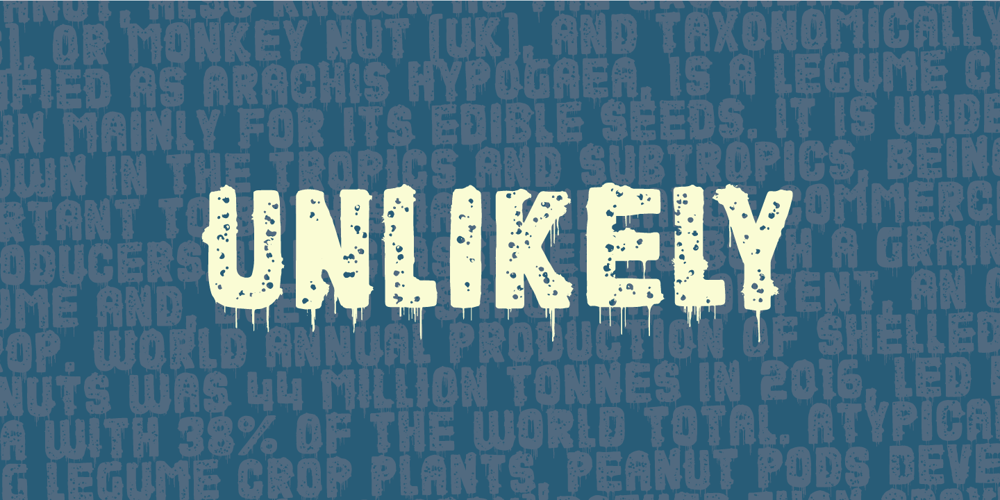
Unlikely
Unlikely font
Unlikely Font Family was designed by Jakob Fischer and published by PizzaDude.dk. Unlikely contains 2 styles and family package options. This all started as a bunch of letter written using a squared paper as a guide. It all turned out fine, but there was something that wasn’t quite right…it was boring! I took all the letters and grunge it all up and did all the drips as well – and suddenly that boring look was gone!That was an unlikely development!